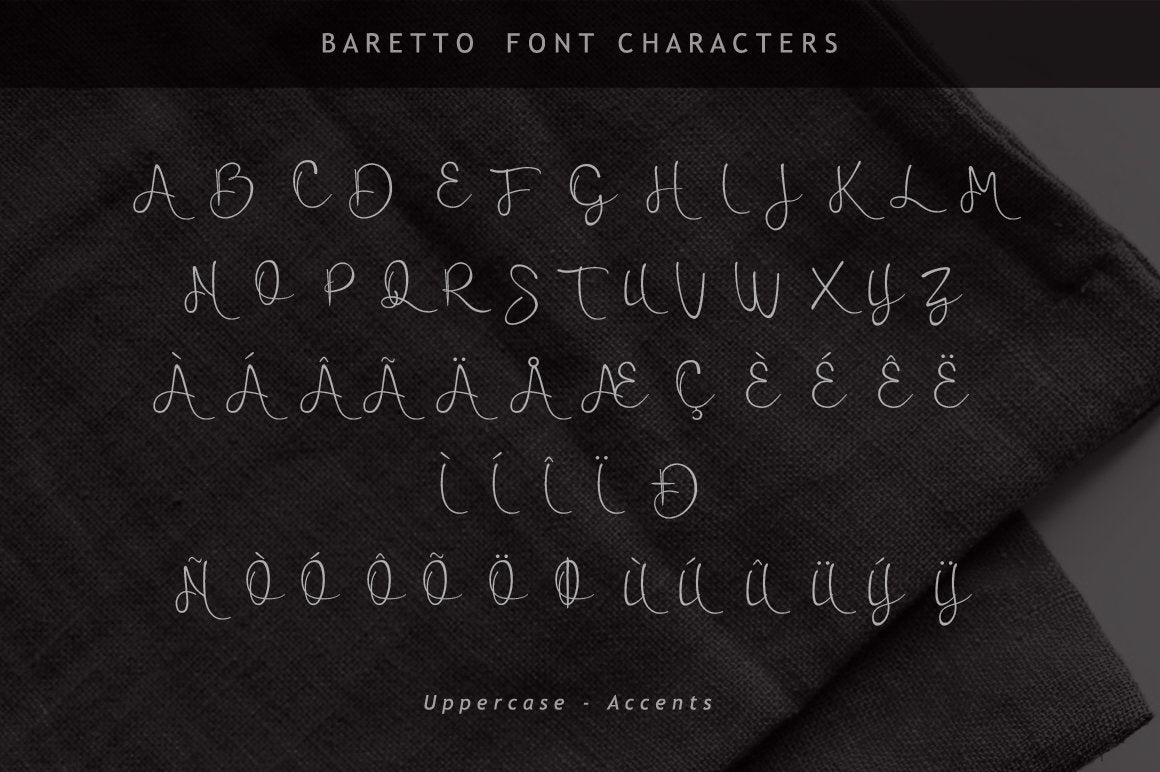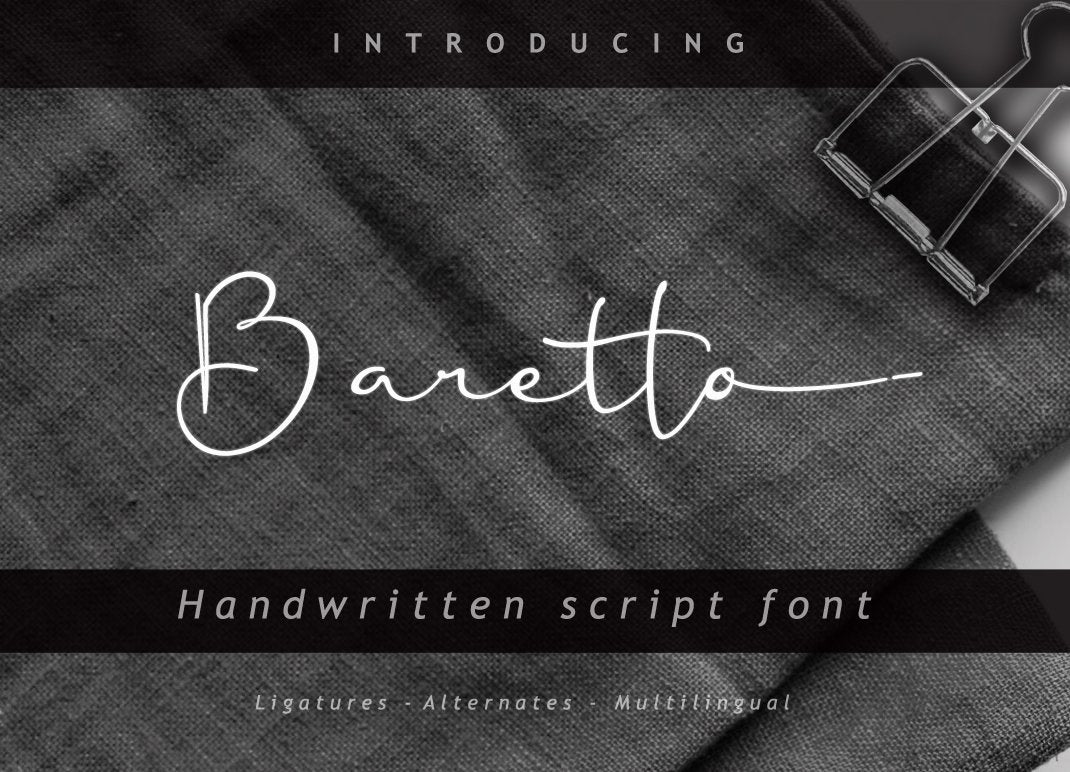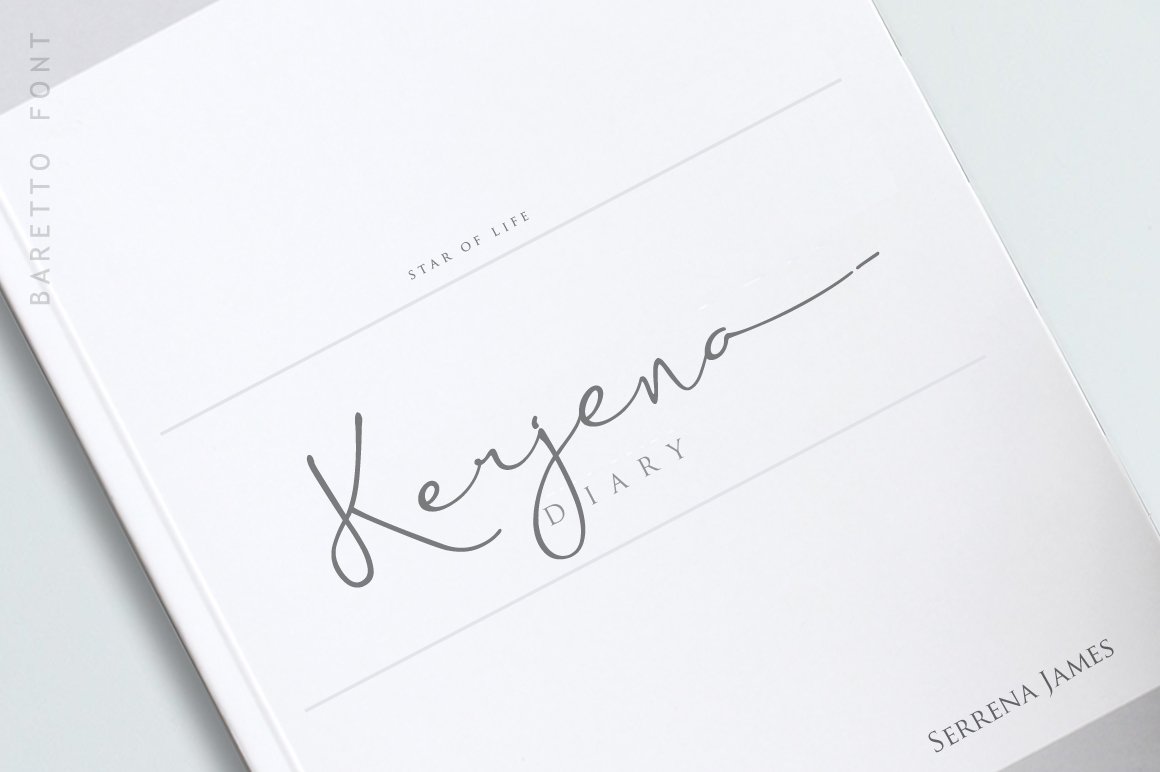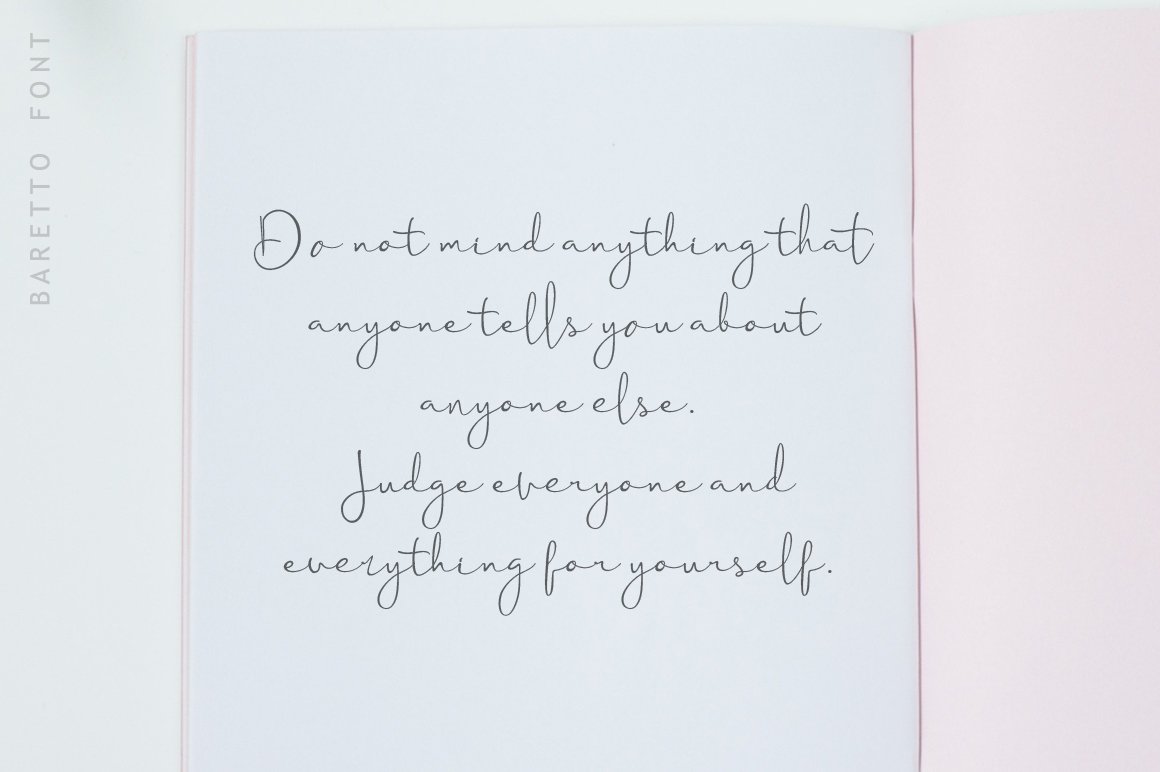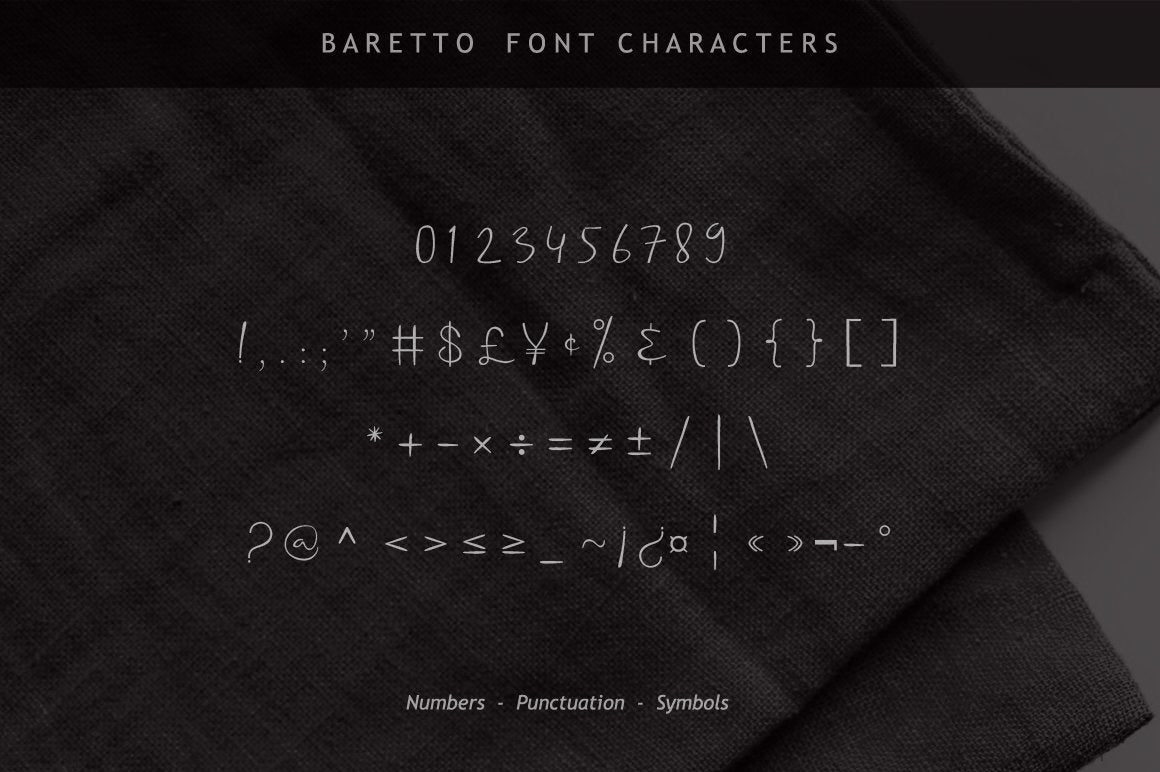
About Baretto Font
Baretto Font Baretto is a beautiful smooth handwritten script font.It provides realistic handwritten typeface in your design projects, absolutely suited for any display or text use. Enriched with beautiful alternates and ligatures. Baretto font perfect for branding, quotes, logos, wedding invites, product packaging, headers, cards and many more!. Features : Available in single OTF and TTF files (Alternates also available in TTF separately ) Uppercase A-Z Lowercase a-z Numbers 0-9 Accents Punctuation Uppercase Alternates Lowercase Alternates Custom Ligatures PUA Encoded Multilingual support Support for Windows, Mac and Linux OS Included : Baretto.otf Baretto.ttf BarettoAlt1.ttf (Alternate glyphs) BarettoAlt2.ttf (Alternate glyphs) BarettoAlt3.ttf (Alternate glyphs) BarettoAlt4.ttf (Alternate glyphs) HOW TO ACCESS ALTERNATE CHARACTERS Install OTF File (.otf) , You need a program that supports OpenType features like Adobe Illustrator CS, Adobe Indesign & CorelDraw X6-X7, Microsoft Word 2010 or later to enable OpenType features (ligatures and alternates). or Install OTF File (.otf) , for the programs that do not support OpenType features you can use Character map application (windows) or Babel map application (optional), choose the font and then copy-paste alternate characters from them to your project page (such as photoshop page etc). or Install TTF File (.ttf) , for the programs that do not support OpenType features you should install all TTF files , so you will have basic font and alternate fonts in your system.You can mix and match them to get the best typographic designs in almost all text processing program. If you have any questions regarding this product kindly leave your message through the contact form, comment field or contact us at  . Enjoy the font!! Thank you..